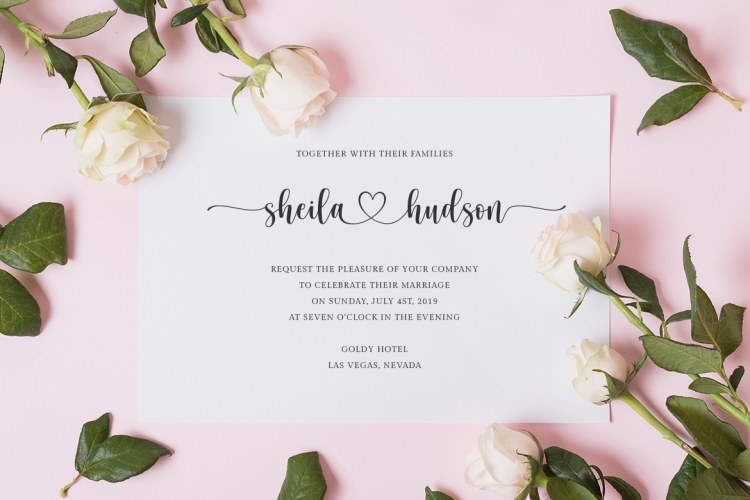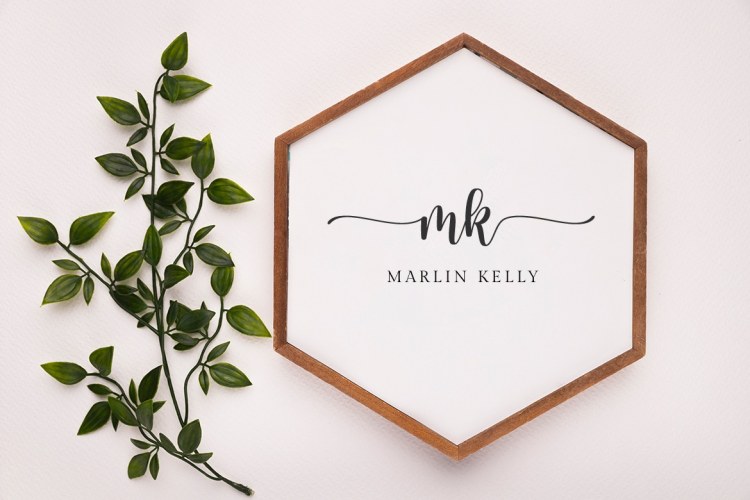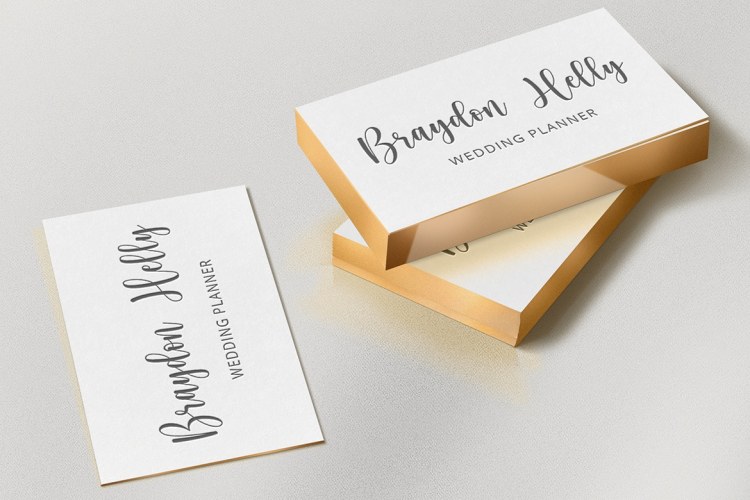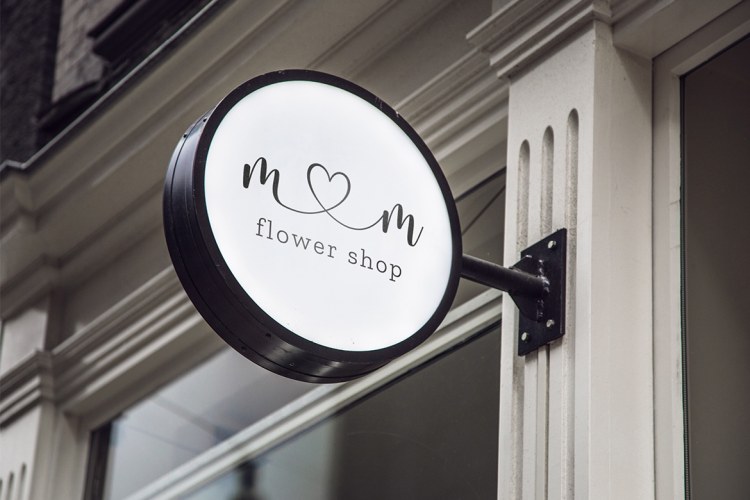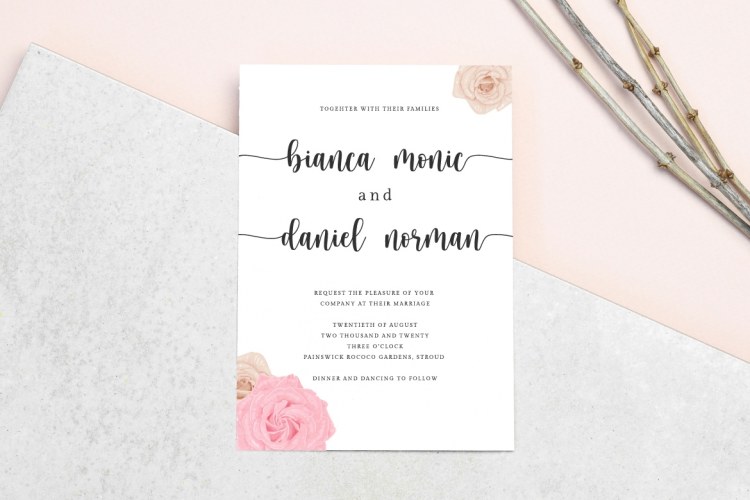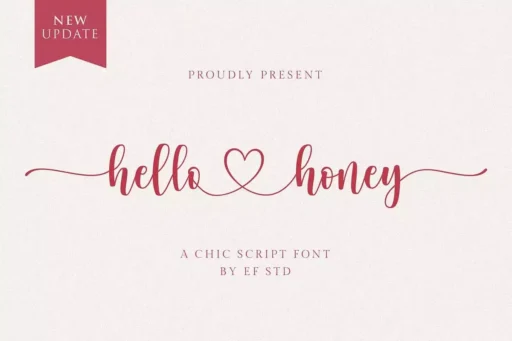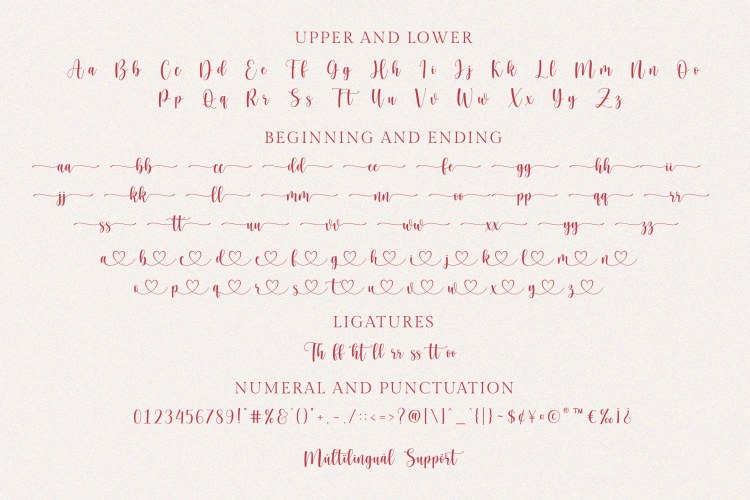
Hello Honey Font
Hello Honey is a beautiful handwritten font that looks great and is perfect for a wide range of projects. It has a positive and inviting feel, suitable for designs that try to convey a cheerful and unpretentious mood. The style makes it unique, and many designers and creators have it on their list of preferences.
Ef Studio designed this font based on her handwriting and a fondness for vintage style. It soon became popular among designers since they saw the potential of applying it in various projects, such as cards and invitations, as well as in branding and social media.
Hello, Honey has fluid forms, playful swashes, and not-too-contrasted stroke width variations. These aspects give it a handwritten feel that makes it more relatable to the user. The font also consists of various stylish alternatives to make the paragraphs even more versatile and unique.
This makes Hello Honey to be suitable for numerous design uses. This makes it suitable for use in children or family-oriented projects and its playful design is suitable for any project that needs a touch of flair. Perhaps you could see this phrase on wedding invitations, baby shower cards, product labels, logos, and website headlines.
Hello Honey usually contains a certain set of international characters and is compatible with numerous European languages. The level of language support available can be different depending on the particular version or release of the font. It comes with 288 characters to give you more options for your design project.
Hello Honey Font is a Script And Handwritten font that brings a professional and versatile look to your projects. Hello Honey is a beautiful handwritten font that looks great and is perfect for a wide range of projects.